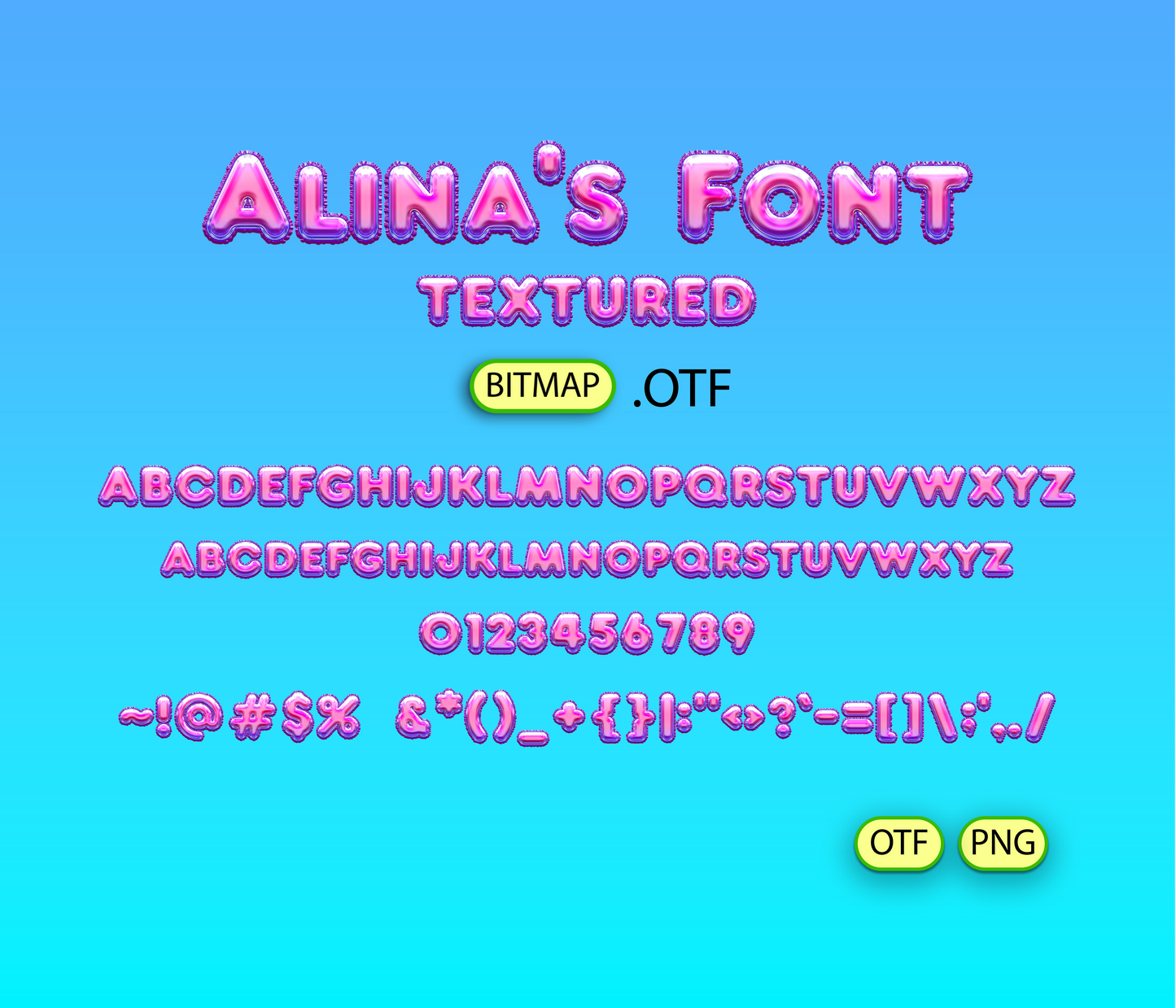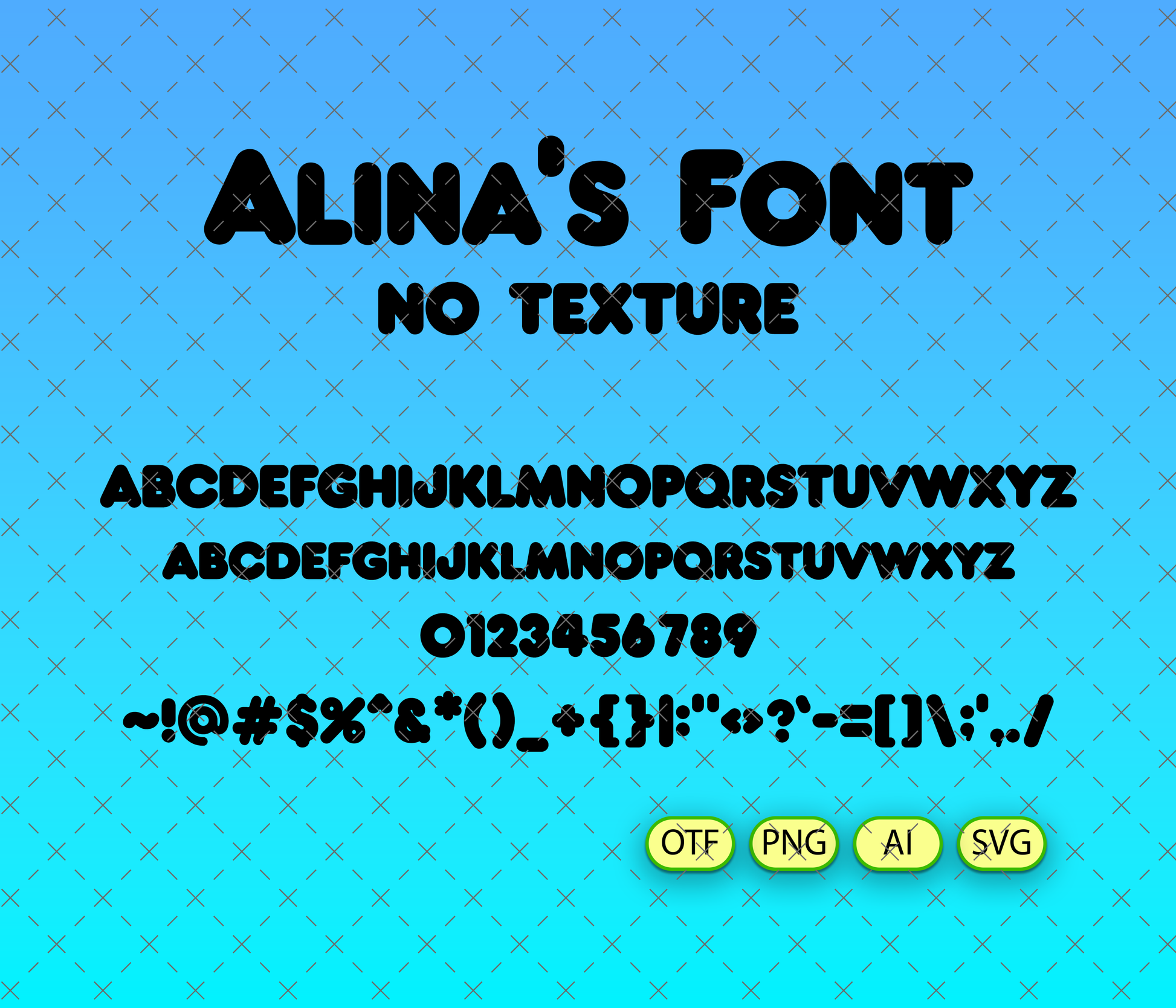
Balloon Font Textured
Float into the whimsical wonderland of festive inflatable celebration with our Balloon Font Textured, capturing the essence of air-filled lettering joy and party-era graphic mystique. Perfect for celebration enthusiasts, themed event planners, content creators, and creative professionals, this font brings the bold, timeless spirit of cheerful festivity stories to your projects. Create eye-catching invitations, merchandise, or digital content with the dramatic energy of colorful party atmosphere narratives.
Playful Typography for Festive Design & Celebration Projects
Our Balloon Font Textured features buoyant, joyfully rounded letterforms with glossy inflated textures reflecting the world of vibrant party gatherings and whimsical carnival settings.
- Event Promotions: Craft delightful invitations, posters, and banners for birthday parties, holiday celebrations, and gatherings that capture the spirit of joyful festive entertainment
- Merchandise Design: Wonderful for t-shirts, posters, stickers, and accessories that showcase the bubbly aesthetic of balloon party culture themes
- Digital Media: Lift websites, blogs, and social media to new heights with bouncy headers and graphics that radiate the warmth of colorful celebration magic
- Creative Content: Inflate genuine cheerfulness into festive artwork, editorial designs, and creative projects inspired by beloved carnival and party tales
- Personal Projects: Release festive energy across scrapbooking, DIY crafts, and home decor inspired by the world of lovable party celebration characters
Effortless Integration and Festive Features
Balloon Font Generator
Many seek an online font generator to replicate the appearance of the Balloon Font. Do not be tempted! No generator can match the buoyant authenticity of our font, which comes in a clean outline version perfect for cutting machines.
Our font celebrates the world of festive party stories and colorful celebration discovery, empowering your projects with its bold and timeless spirit. Whether crafting promotional materials, designing themed products, or adding a festive touch to personal projects, this font communicates the vibrant essence of balloon party entertainment. Ready to float joyful mystique into your creations? This font is your most uplifting resource for eye-catching, impactful design.